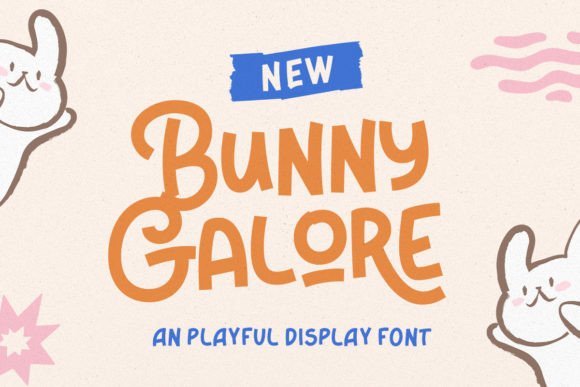
Meet the Bunny Galore Font: Add Whimsy to Your Designs
Have you ever stumbled upon a font that instantly sparks creativity and makes you want to create something magical? For designers, it’s a moment of pure bliss – the moment when the perfect font comes along and elevates your design to the next level. For me, that moment happened when I discovered the Bunny Galore Font.
This delightful display font is more than just a pretty face; it’s a tool that adds personality and vibrancy to your designs. Whether you’re creating children’s illustrations, packaging, or social media graphics, Bunny Galore Font brings a unique touch that makes your work stand out. Its charming character and playful letterforms make it an invaluable asset for designers looking to add a whimsical touch to their designs.
Bunny Galore Font Key Features
- Font Styles: Bunny Galore Font comes in 3 unique styles: Regular, Bold, and Italic, offering versatility for various design needs.
- Unique Characteristics: This font features a playful, whimsical design with intricate details, making it perfect for creating eye-catching and engaging designs.
Bunny Galore Font Review
I’ve had the chance to work with Bunny Galore Font, and I must say it’s a mixed bag. ✨ One thing that works well is its playful and whimsical feel. It’s perfect for designers who want to add a touch of fun to their projects. The font’s rounded edges and soft lines make it suitable for children’s books, greeting cards, and other lighthearted designs.
- ✨ Great for lighthearted and playful projects
- ✨ Suitable for children’s books and greeting cards
- ✨ Easy to read, even at smaller font sizes
However, there are some limitations to consider. ⚠️ The font’s design can feel a bit too simplistic at times, which may not be suitable for more complex or professional projects. Additionally, the font’s character set is not as extensive as some other fonts, which may limit its use in certain situations.
- ⚠️ May feel too simplistic for complex or professional projects
- ⚠️ Limited character set
Overall, I think Bunny Galore Font is a solid choice for designers who want to add a touch of whimsy to their projects. However, it’s not the best choice for more serious or complex designs.
Tip: Use the Bunny Galore Font for playful and whimsical designs, such as children’s party invitations or Easter-themed graphics.
Tip: Use the Bunny Galore Font for creative typography and custom graphics, such as social media graphics or posters.
Tip: Use the Bunny Galore Font for presentations or documents that require a playful and approachable tone.
The Bunny Galore Font is ideal for:
- Easter-themed graphics and designs.
- Playful social media graphics and ads.
- Custom posters and flyers.